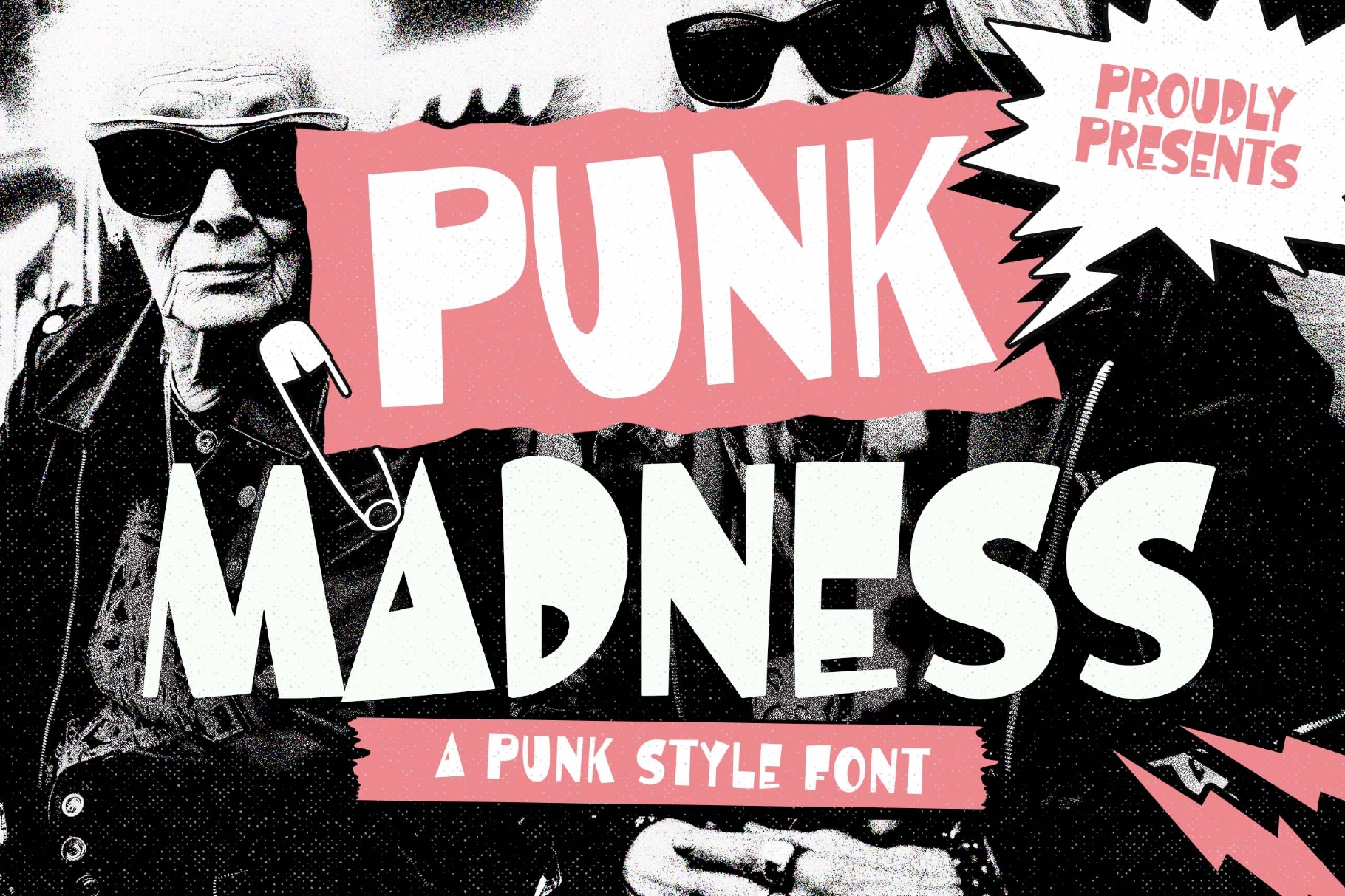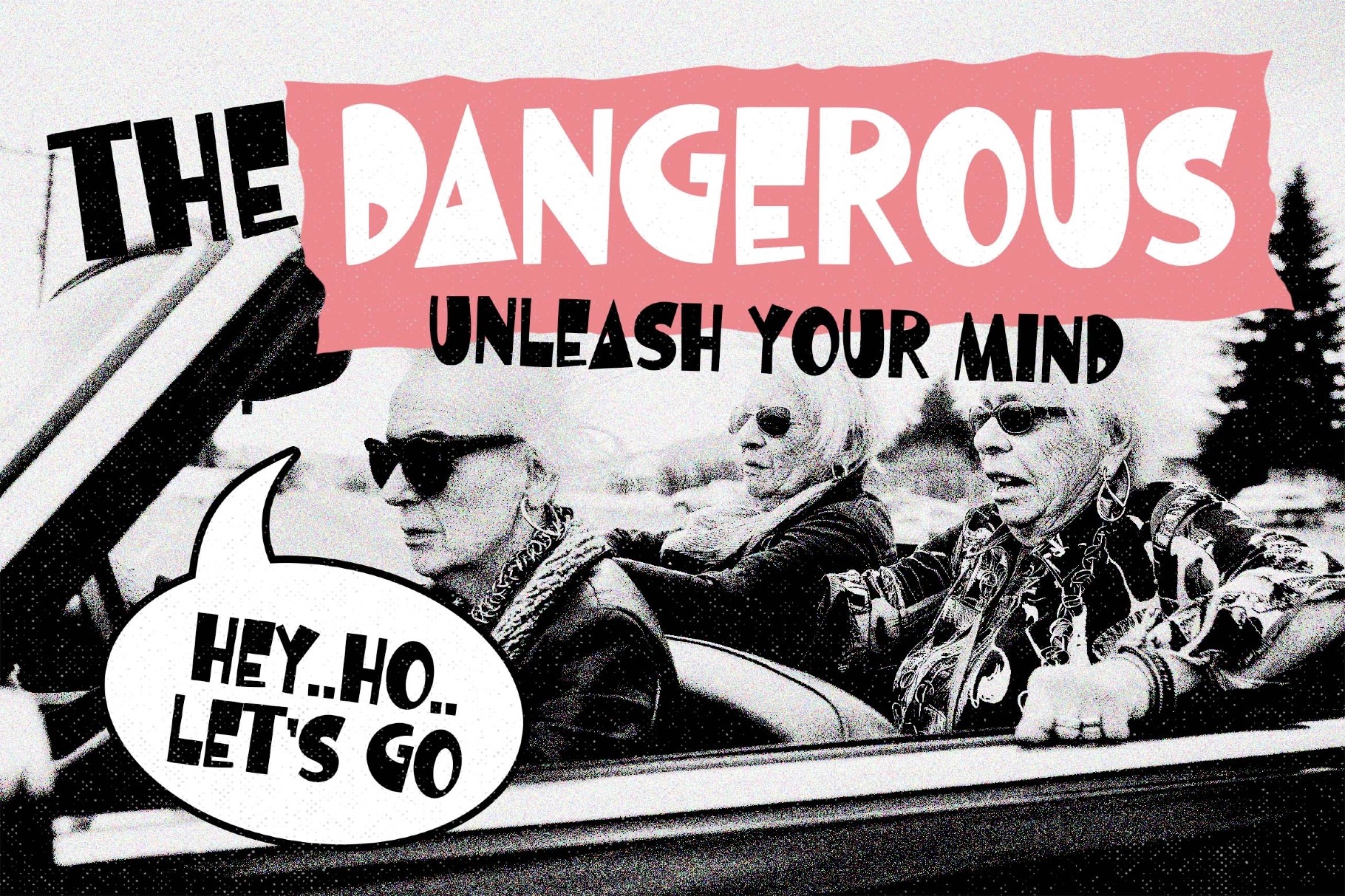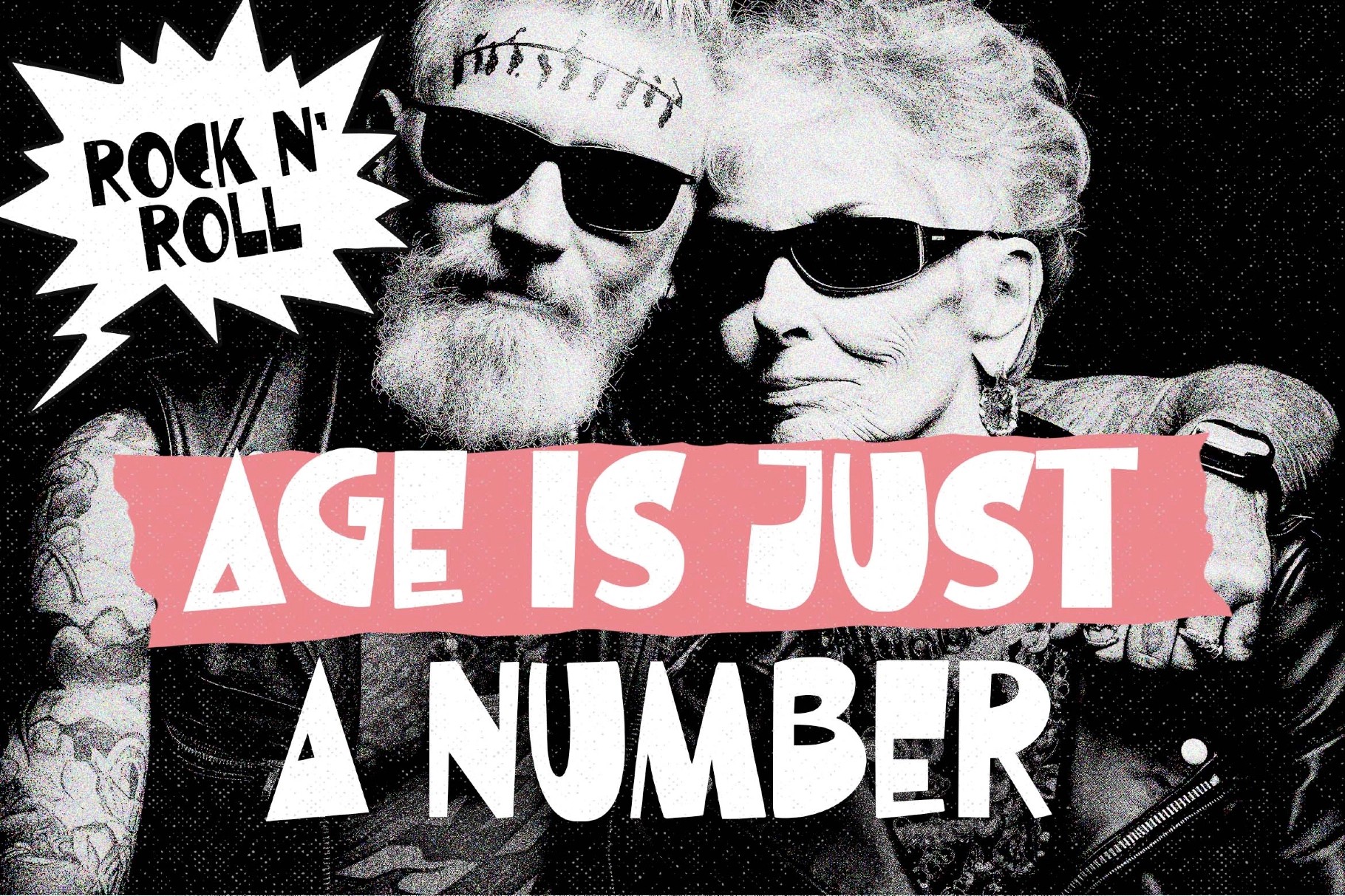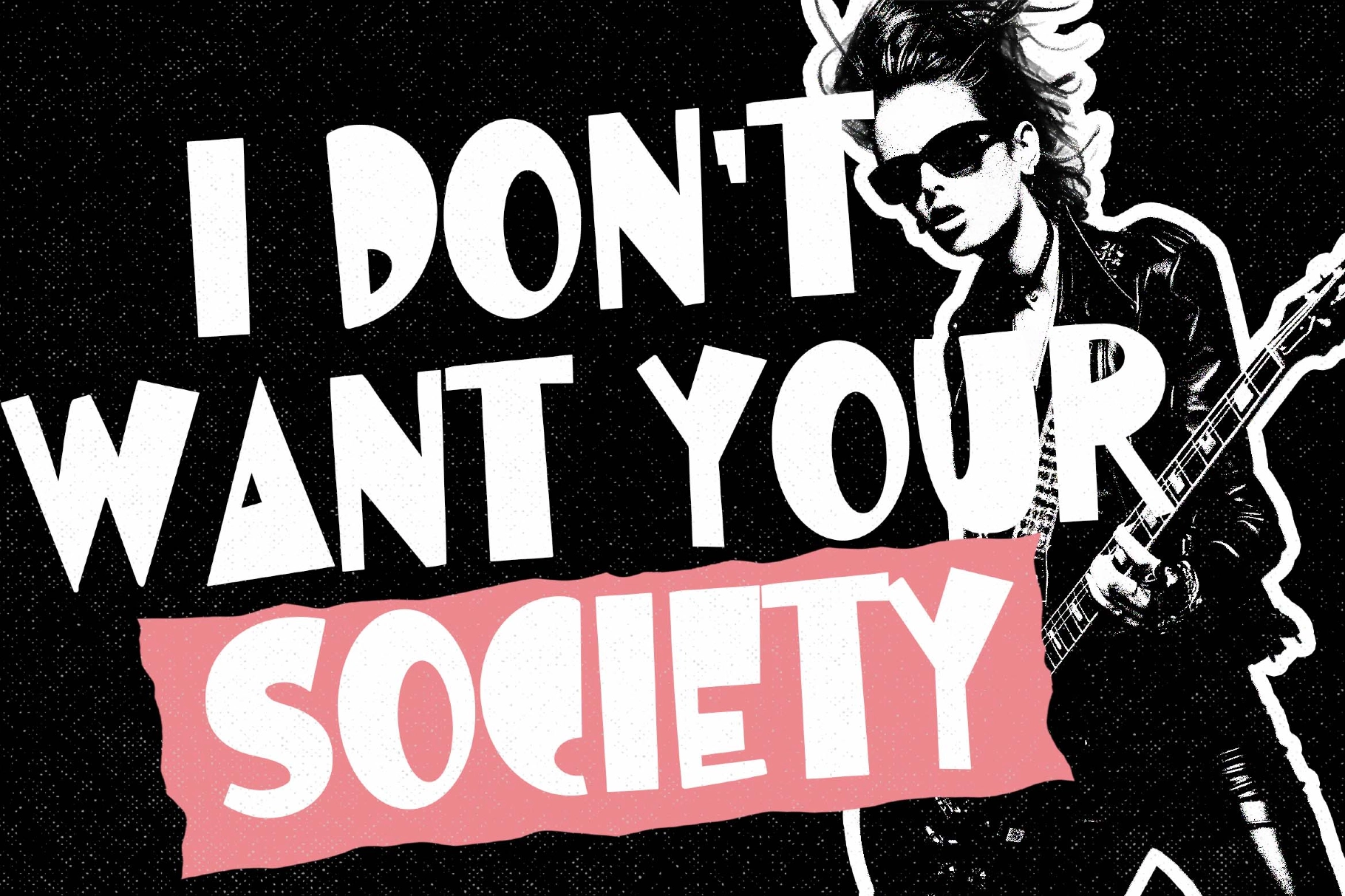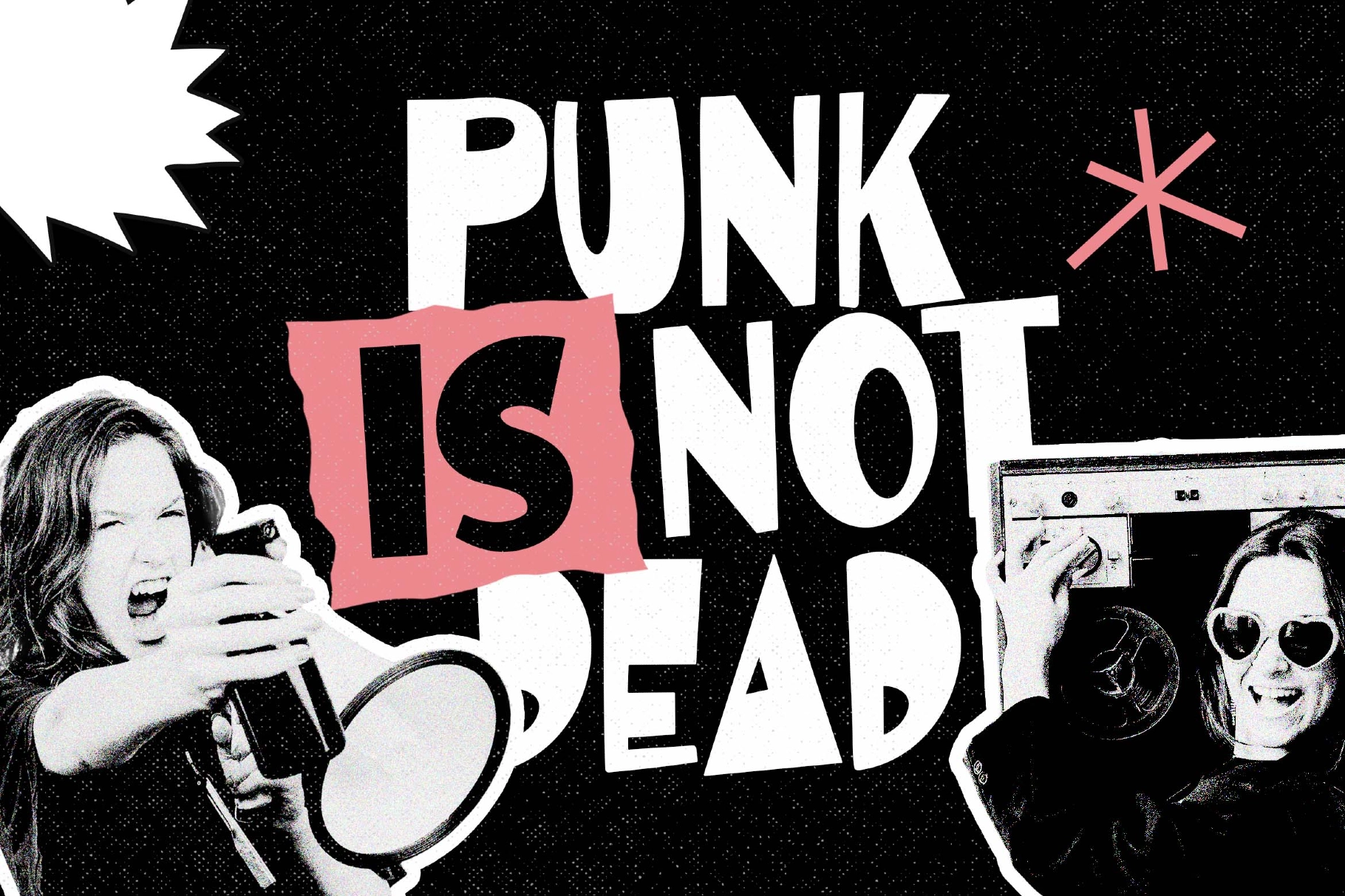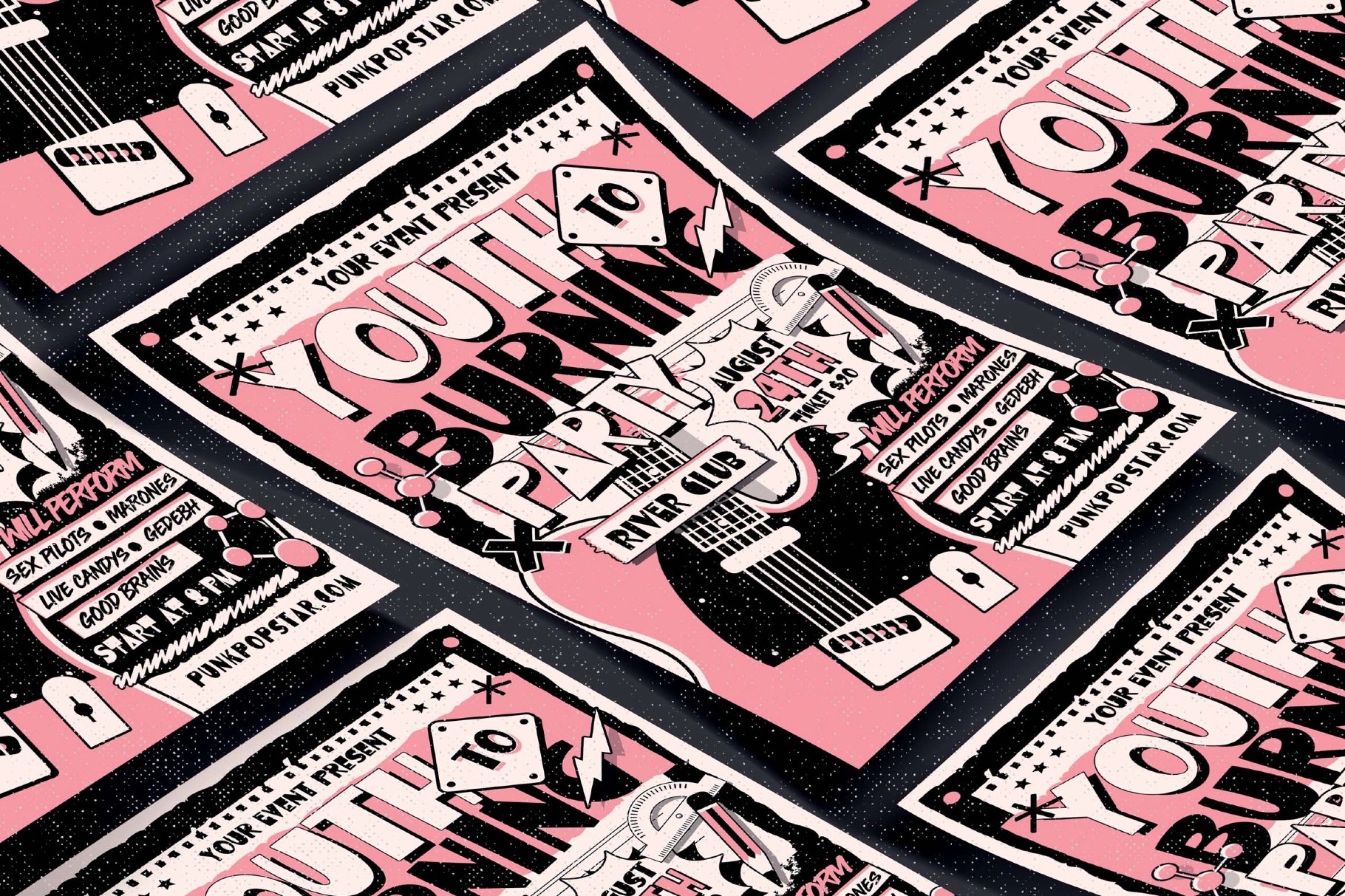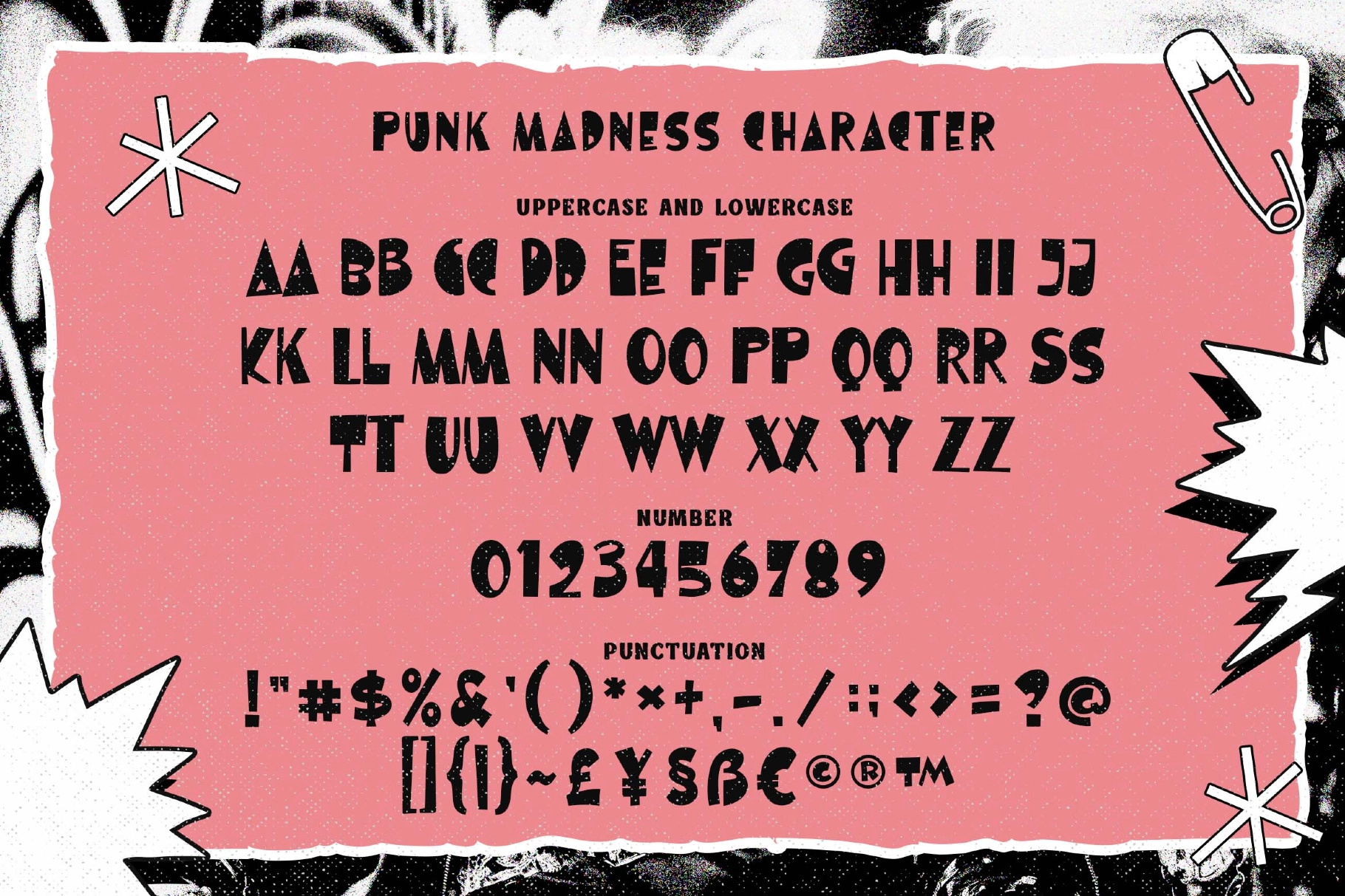
Punk Madness - Bold Punk Font
This punk display font is raw, heavy, and gloriously unruly. Its chunky letterforms, uneven cuts, and gritty texture bring instant flyer-wall energy — loud enough for a gig poster, sharp enough for a brand that refuses to behave.
Punk Madness is made for band logos, concert posters, album artwork, zines, skate graphics, streetwear prints, festival promos, stickers, product packaging, social media headers, comic titles, and merch design. The bold shapes keep every word clear, while the rough edges add that handmade chaos no boardroom has ever successfully requested.